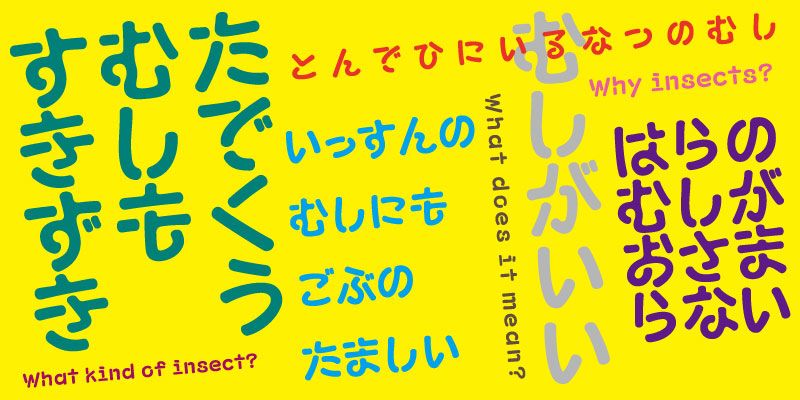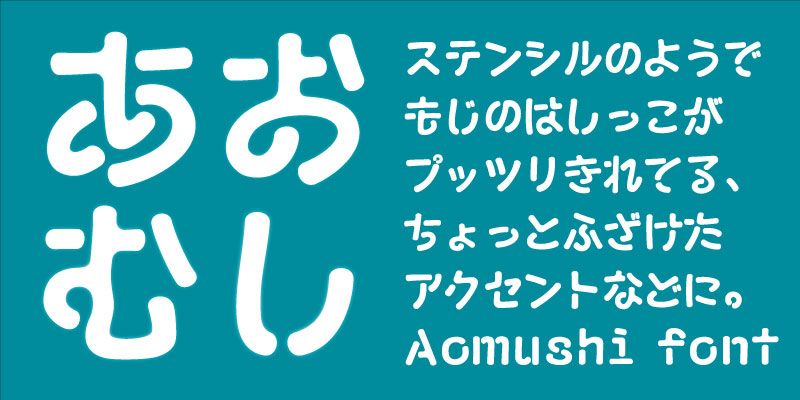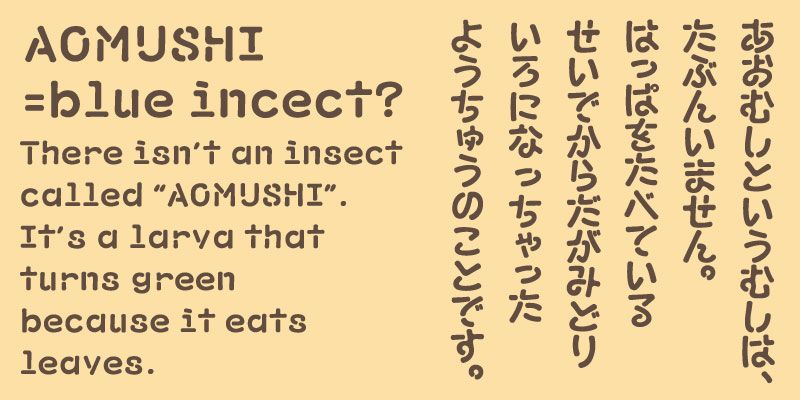
A bold stencil-style typeface. Abruptly cut edges and a subtle bleed at the margins create an overall soft impression.
Try using it for analog-feeling names, small accents, or textured expressions where a sense of materiality adds character.
gtai explores typography not only as a vehicle for conveying information, but as a medium for crafting visually intriguing forms.
Constantly seeking out the inherent fascination of lettering, gtai strives to create font designs that are free-spirited, playful, and driven by an experimental ethos.